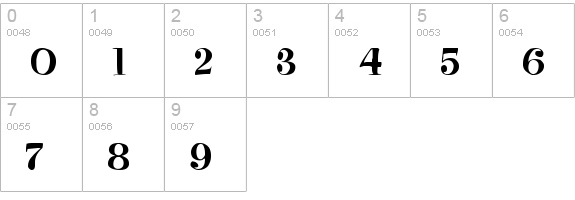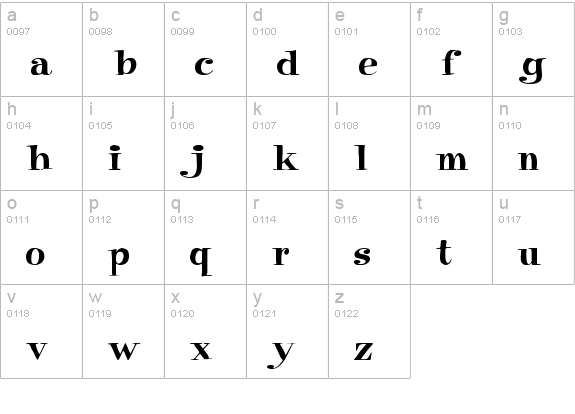
PCMoxie Font Details
Introducing PCMoxie, a captivating and versatile font that is sure to add a touch of modern elegance to any project. With its sleek and stylish design, PCMoxie effortlessly combines sophistication with a hint of playfulness, making it perfect for a wide range of creative endeavors. This font features clean lines and well-balanced letterforms, allowing for exceptional legibility and readability in both small and large sizes. Whether used for branding, logo design, advertising, or any other creative application, PCMoxie is guaranteed to make a lasting impression. And the best part? PCMoxie is completely free! Yes, you heard it right. This remarkable font is freely available to download at FontsMarket.com. Now you can enhance your designs without breaking the bank. Say goodbye to expensive licensing fees and hello to endless possibilities. So why wait? Give your projects a fresh and contemporary look with PCMoxie. Download it today for free at FontsMarket.com and let your creativity soar to new heights. Don't miss out on this amazing opportunity to add a touch of elegance and sophistication to your designs with PCMoxie.